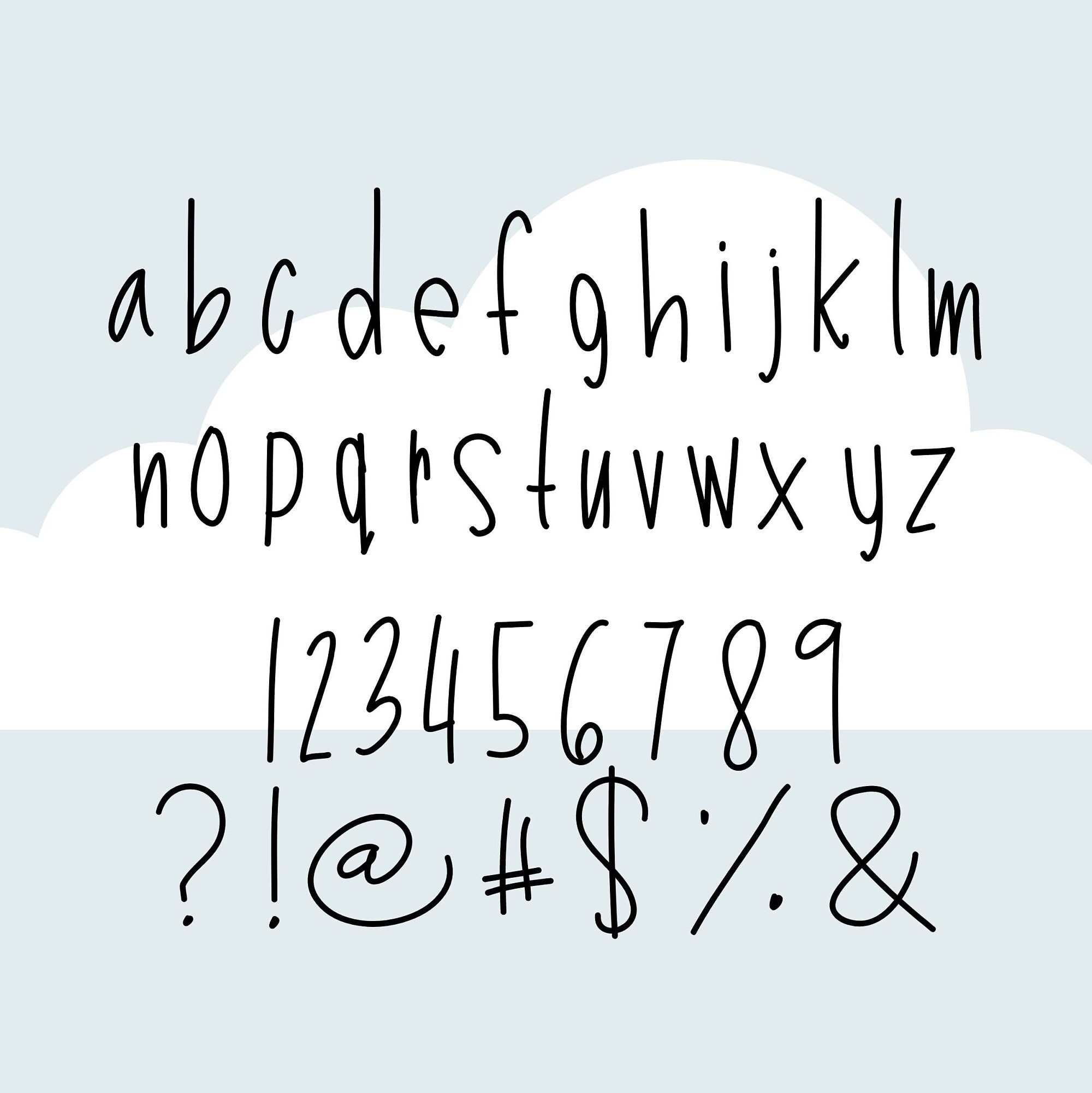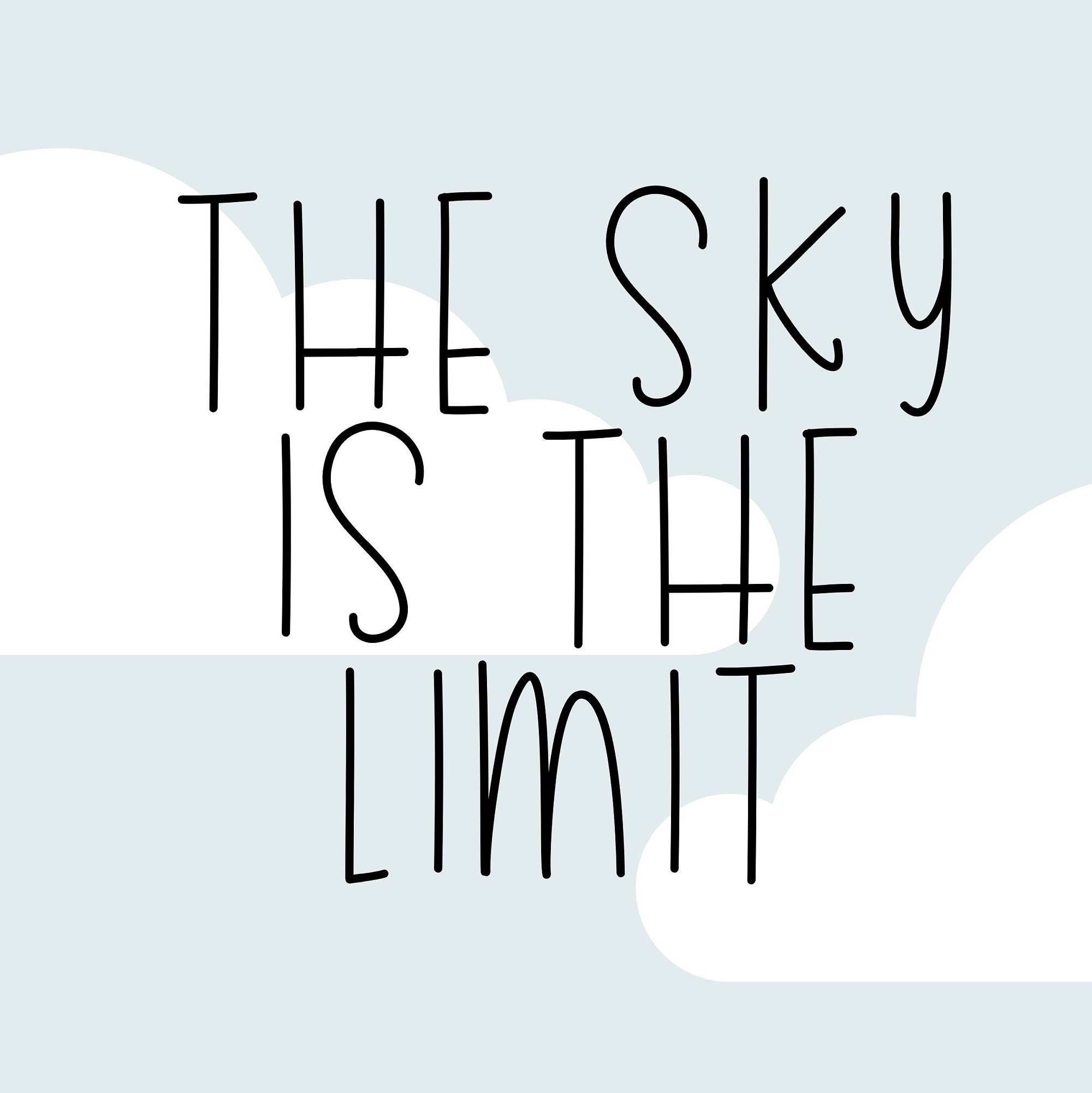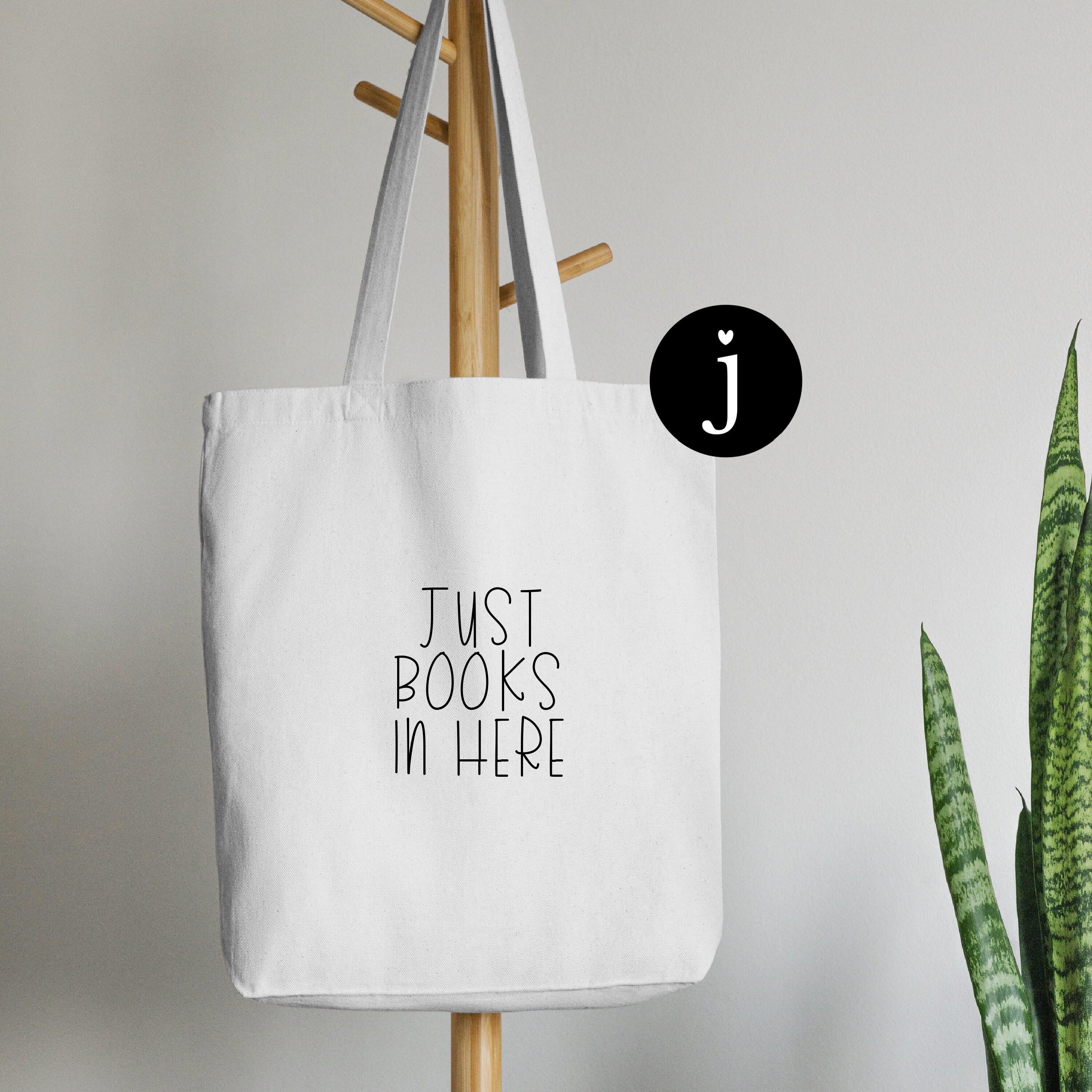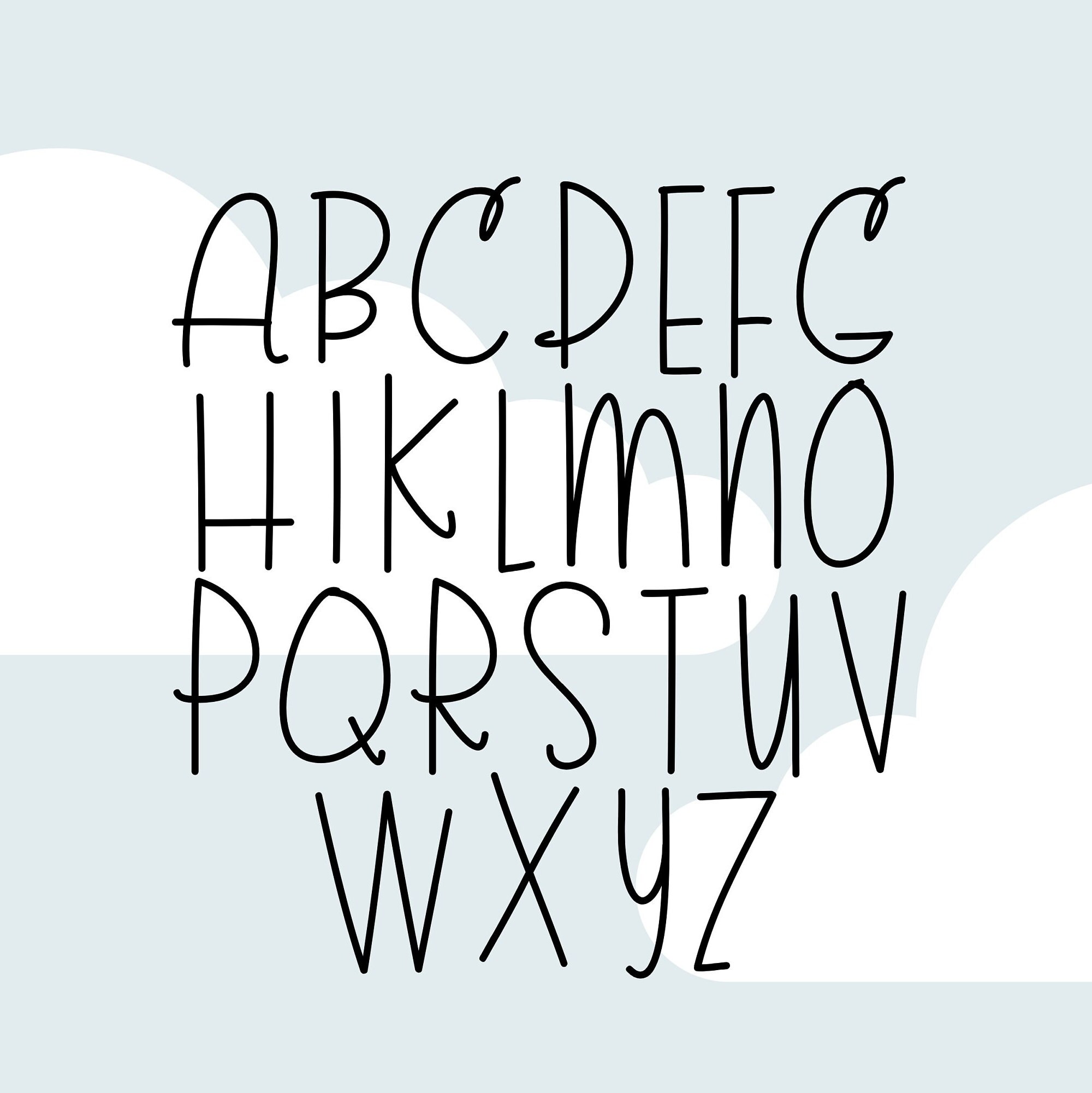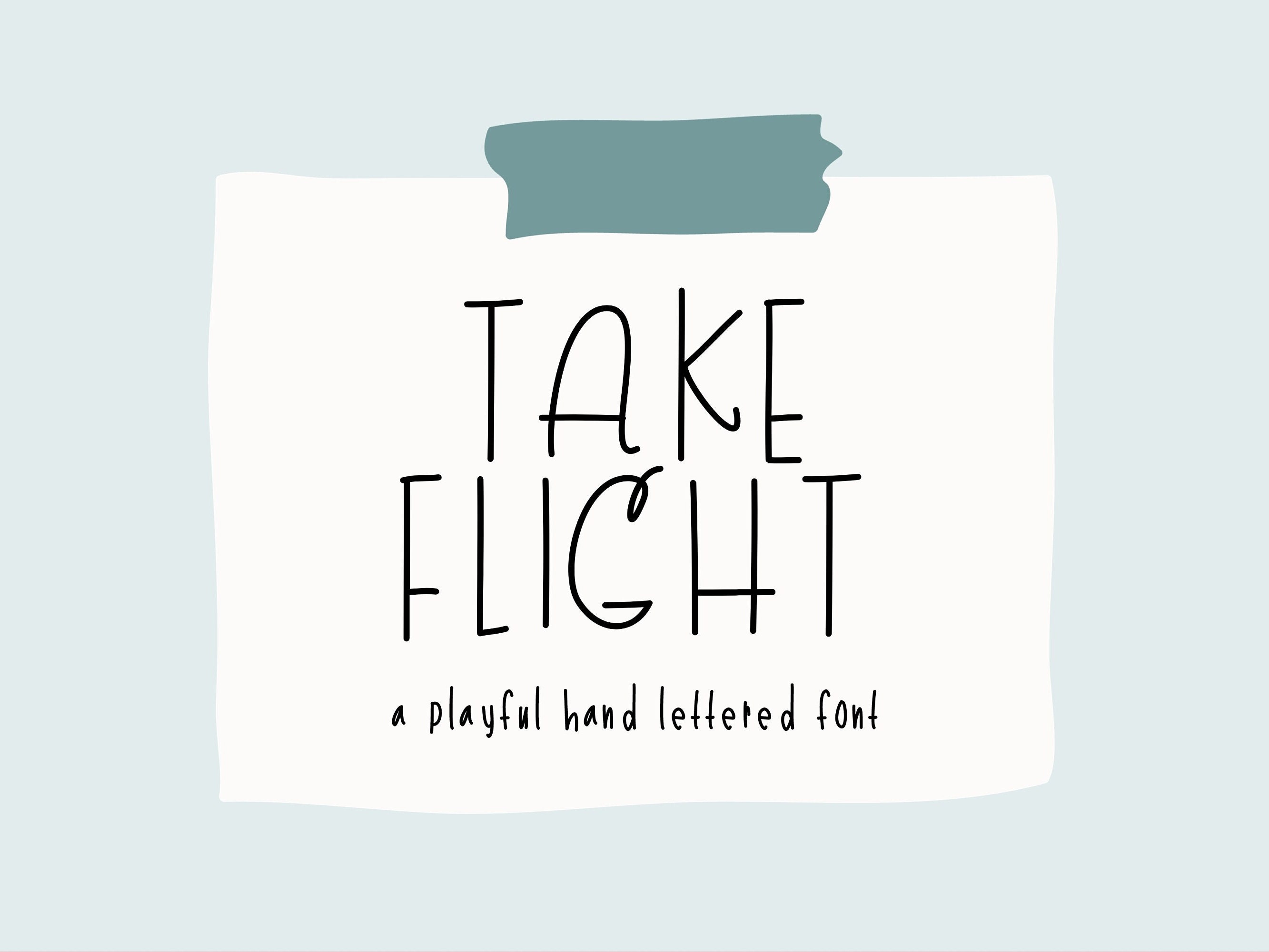
Take Flight Font and Vacay Stickers. Cute and Quirky, perfect for graphic tees and invites.
Create your next project with this adorable font and fun vacay vibe digital sticker elements.